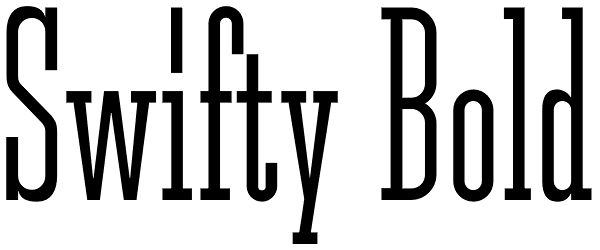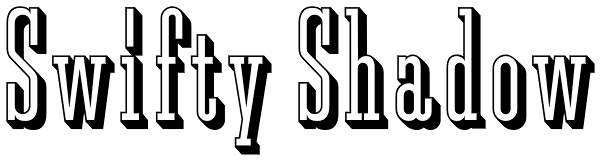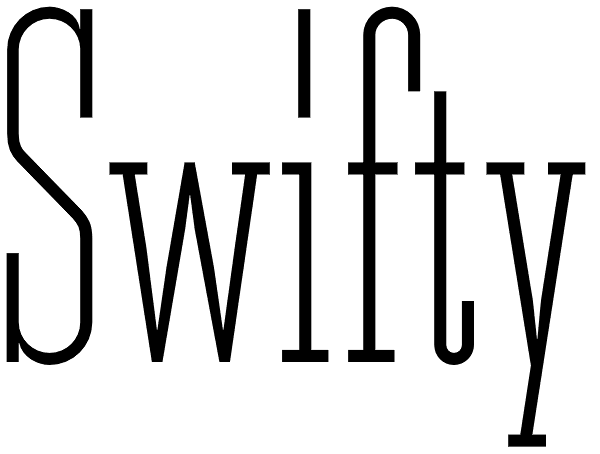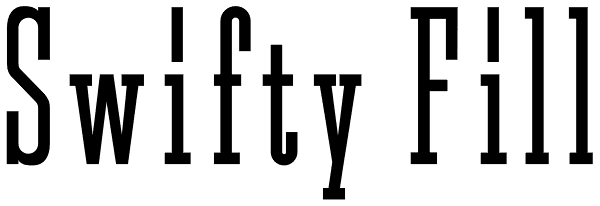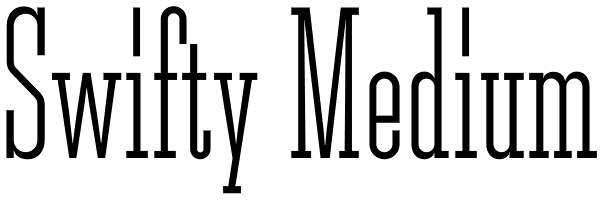
Swifty
Swifty is four-style font family that features a low x-height and a towering cap height. This gives the font a distinct retro look that is great for titles, magazines, signs, shirts, and scrapbooking.
Swifty Bold
Swifty Shadow
Swifty Fill
Swifty Medium